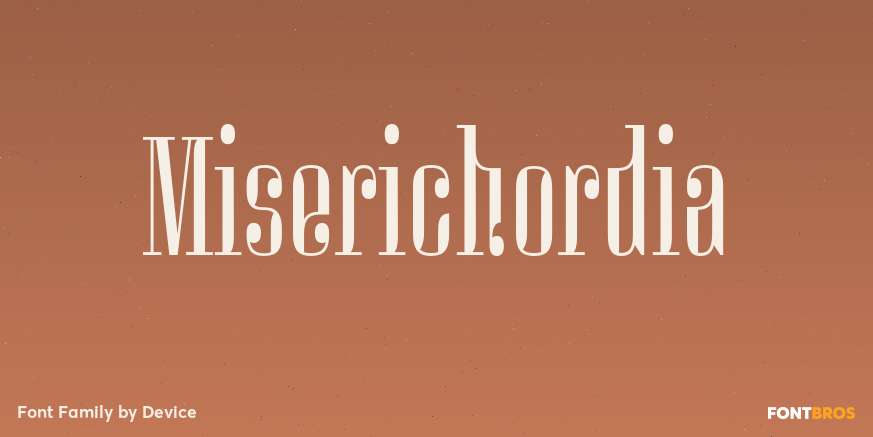
HomeFont BrosArt Deco (1910-1935)Miserichordia Art Deco (1910-1935)Historical Miserichordia FacebookXPinterestWhatsApp 1 of 1 About Miserichordia evolved from photographs taken on a trip to Venice and instigated a sharp turn left into more idiosyncratic and decorative serif fonts. Something of a new direction for Device.  DOWNLOAD ON FONT BROSThis font is sold and delivered by Font Bros. Font Canyon may earn a commission if you buy through this link. People also explored Aspire Narrow Nibble Font Wiloka Font Barelyn Script Sand Rock Font Valentine Samantha Font Adelya Font Love Daddy Font Katelyn Edwards Font 232 0 TagsMiserichordia Font Previous articleFoverdisNext articleSparhawk LEAVE A REPLY Cancel reply Comment: Please enter your comment! Name:* Please enter your name here Email:* You have entered an incorrect email address! Please enter your email address here Website: Save my name, email, and website in this browser for the next time I comment. Personal Use Free Amellis Path Personal Use Free Read more about this font Concrete Wall Personal Use Free Read more about this font Term Free Personal Use Free Read more about this font Creativo Personal Use Free Read more about this font BLOG How to Cut Any Font on Cricut: Convert a Font to SVG (Free) Turn any font into a clean SVG so it cuts crisp on Cricut - a quick 3-step workflow using a free font-to-SVG tool. Fonts That Capture the Spirit of New York City Free Fonts Risk: Why Free Fonts Can Be Dangerous for Designers Free vs Paid Fonts: Why Investing in Premium Fonts Is Worth It